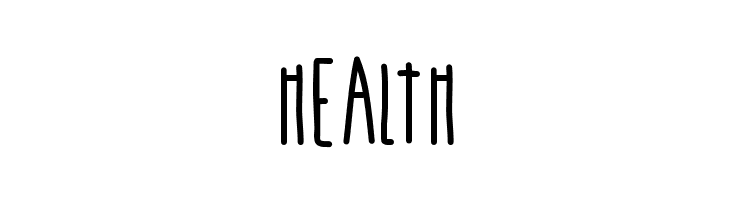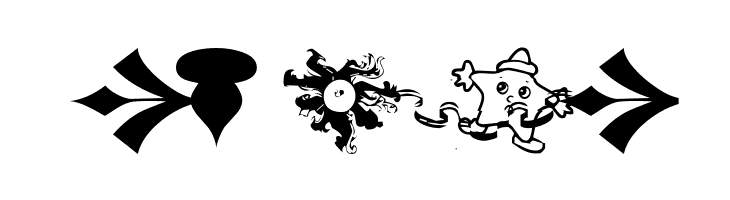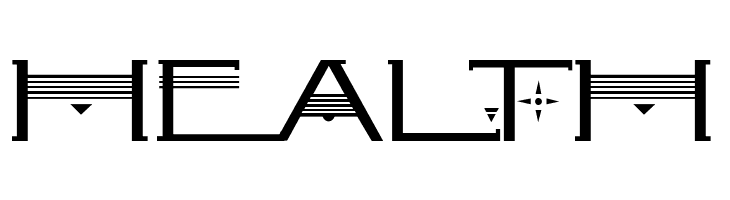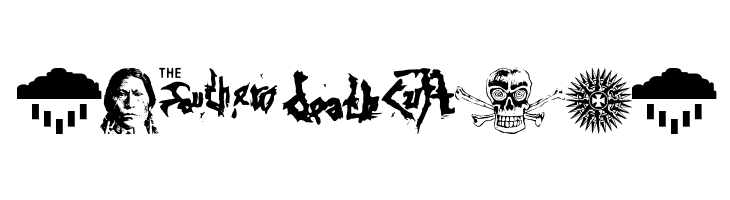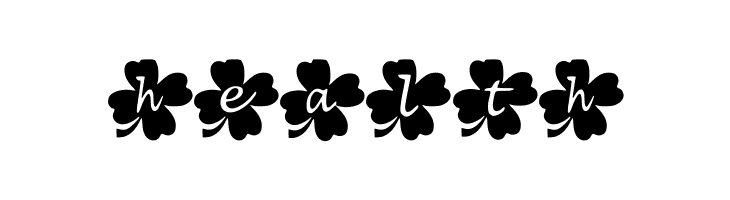
( Dani Foster Herring - dani3d.com/ )
A themed dingbat font with Hanukkah and Jewish festival icons.
( Dani Foster Herring - dani3d.com/ )
Celestial-themed decorative dingbat font with sun, moon, and star icons.
( Des )
A playful, handwritten font with tall, narrow letters and decorative symbols.
( Dingbat Crazy - dingbatcrazy.fateback.com/ )
Eclectic dingbat font with diverse symbols and decorative motifs.
( Dixie's Delights - members.aol.com/dixiesdlts/ )
Ornamental display set with African geometric motifs.
( Fontsandfashion - www.fontsandfashion.com/ )
A playful, decorative font with Easter-themed illustrations and text.
( Frankenfonts - www.thebainbridges.net/fonts/ )
An ornate, decorative font with intricate geometric details and a modern flair.
( Frankenfonts - www.thebainbridges.net/fonts/ )
A pictogram font with occult and mystical symbols.
( Funqi )
A whimsical font with script letters inside four-leaf clover silhouettes.
( I Shot the Serif - www.squaregear.net/fonts/ )
A whimsical dingbat font with diverse pictograms and stick figures.